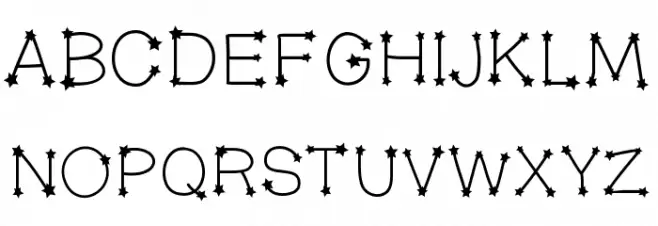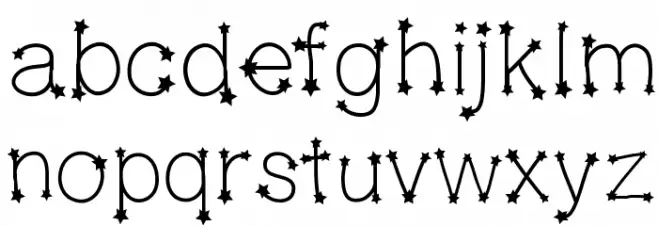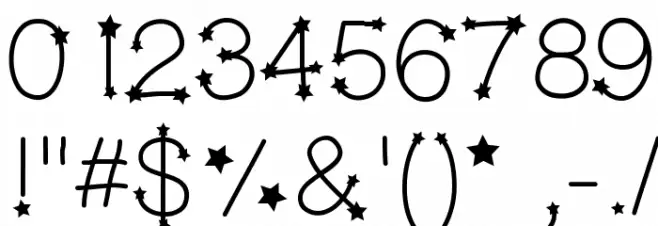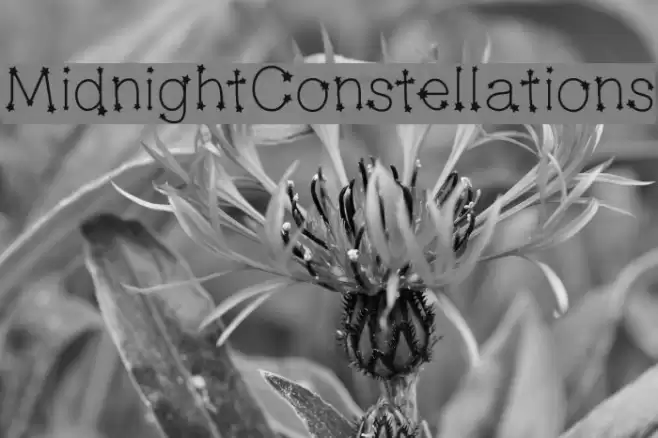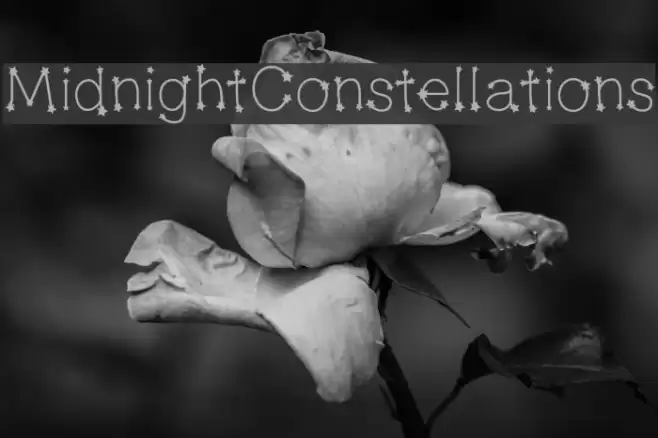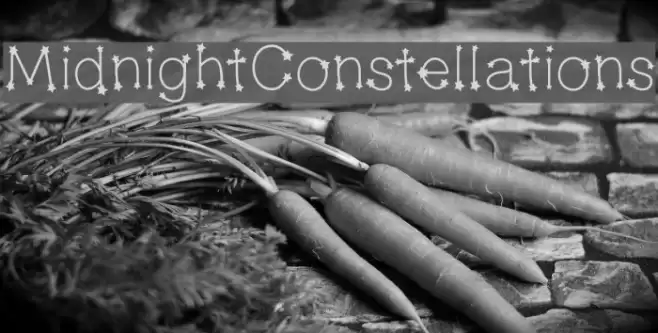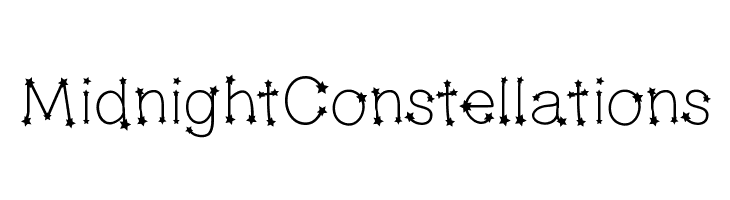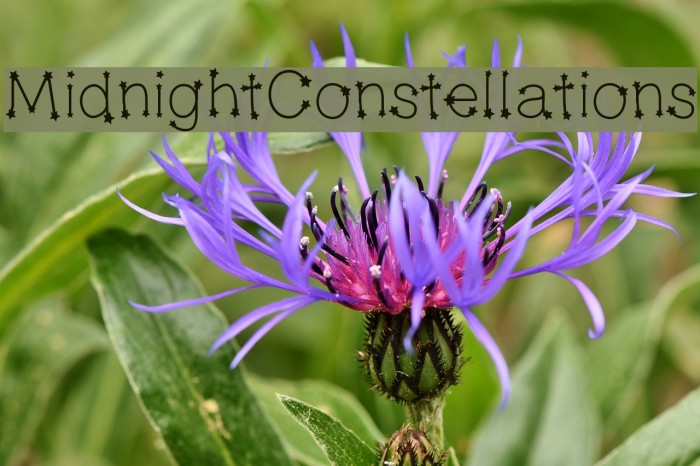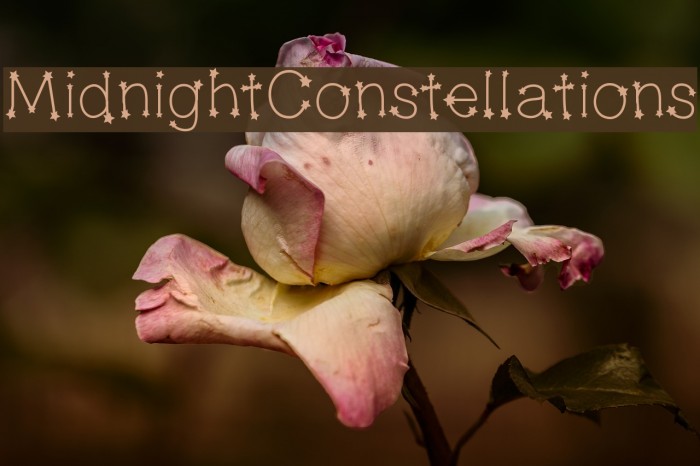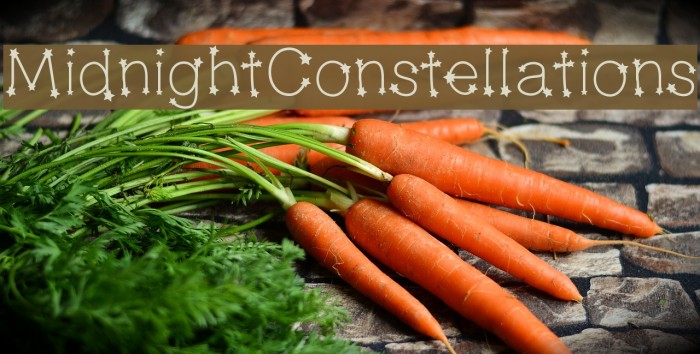
MidnightConstellations
This font features a whimsical and celestial design, with each character adorned by star-like embellishments at key points, creating a constellation effect. The uppercase and lowercase letters maintain a consistent style, with stars placed at the ends of strokes and intersections, giving the font a playful and decorative appearance. The numbers and special characters follow the same theme, ensuring uniformity across all glyphs. This font is ideal for projects that require a touch of fantasy or a night sky theme, making it perfect for invitations, posters, or children's book covers.
A whimsical, star-studded font with a celestial theme.
- Proposed Projects: Ideal for fantasy-themed invitations, celestial event posters, children's book covers, and decorative headings.
- Overall Style: Decorative
- Use Case: Headlines, Logos, Decorative text